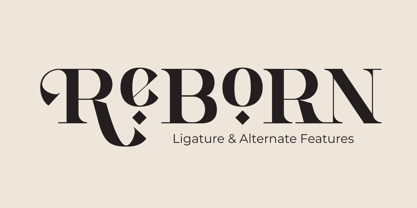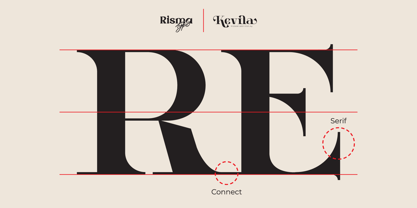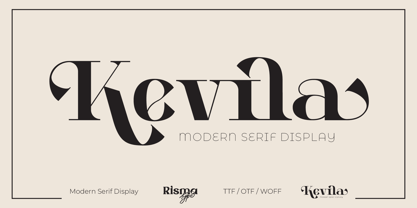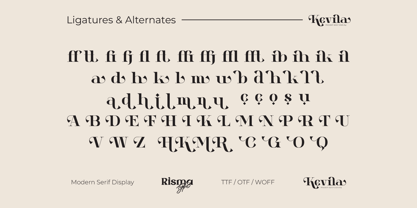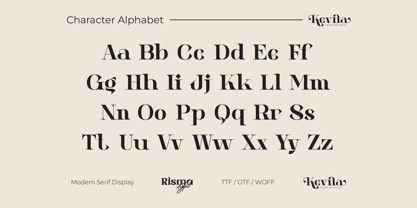
Kevila
by Risma Type
The Kevila Font Family was designed by Risma Mulyasari and published by Risma Type. Kevila contains 2 styles and family package options.
Kevila is a sophisticated modern serif display font that strikes the perfect balance between elegance and boldness. With its sharp serifs, clean lines, and distinctive character, Kevila is designed to elevate any design project. Ideal for high-end branding, editorial work, and any design that calls for a polished, yet powerful statement, this font brings a touch of modern luxury to your creations.
Key Features:
• Refined modern serif design
• Balanced, bold letterforms with elegant serifs
• Available in various styles for versatile use
• Perfect for branding, editorial design, and high-end digital media
• Multi-language support to reach a global audience
• Designed to make a stylish, impactful impression with a contemporary feel
"Transform your designs with Kevila – a modern serif that adds sophistication and strength to any project."